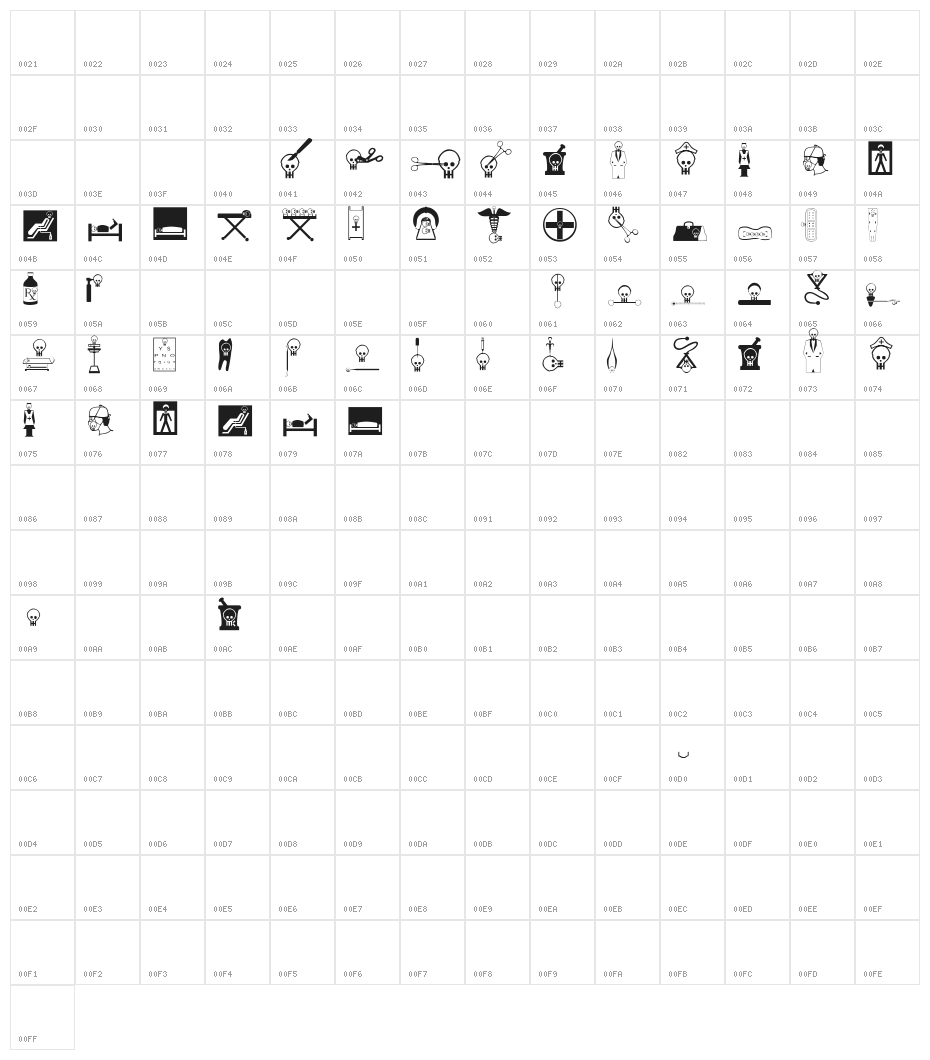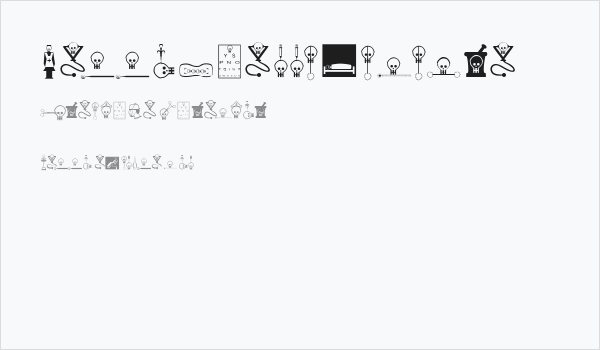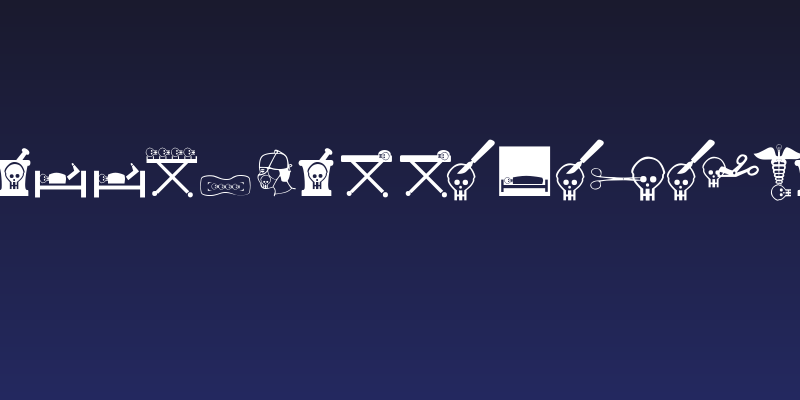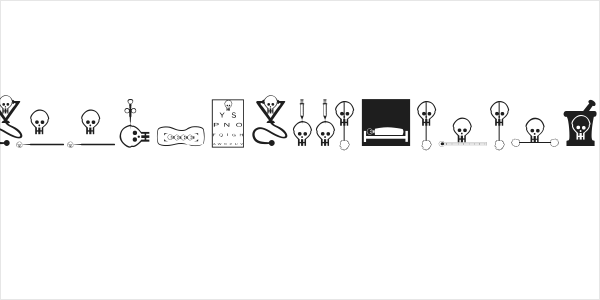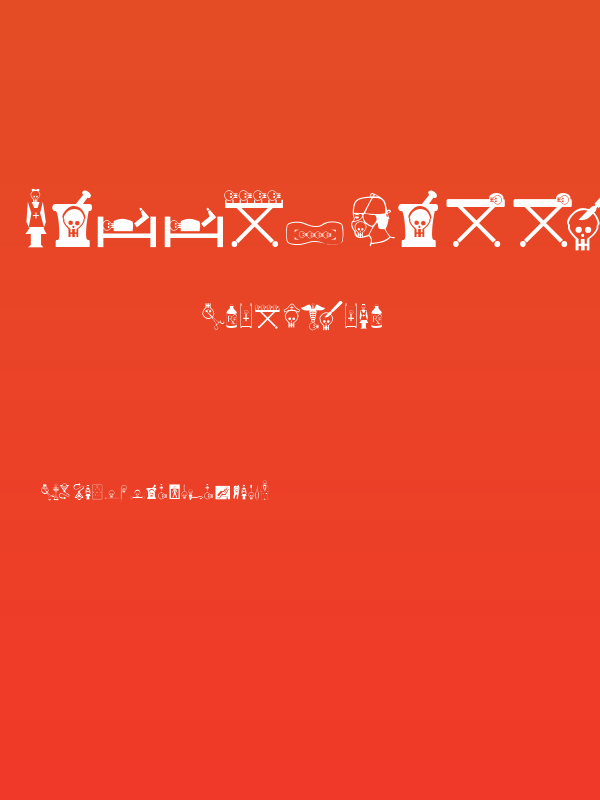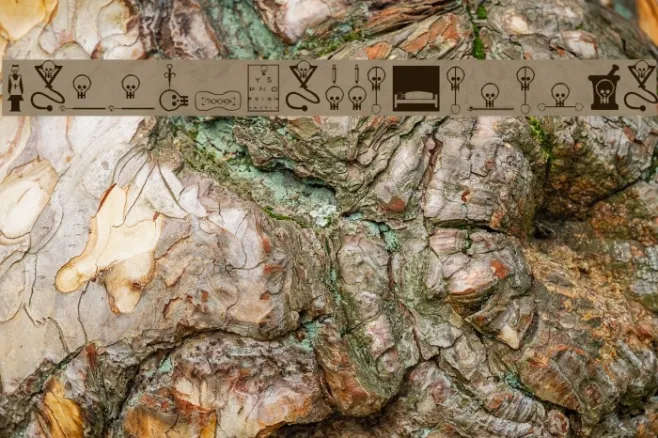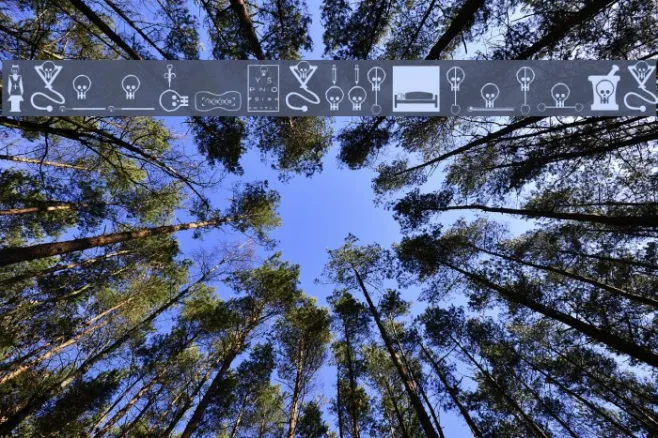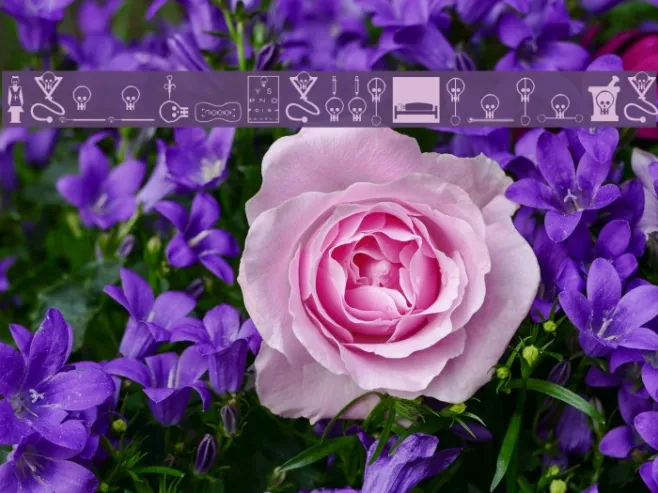
HelloViennaMacabre Font
HelloViennaMacabre Description
This font is a highly decorative and thematic typeface that incorporates macabre and medical imagery into its design. Each character is represented by a unique illustration, often featuring skulls, medical instruments, and figures in medical attire. The style is bold and graphic, with a strong emphasis on visual storytelling. The characters are more pictorial than textual, making it suitable for specific thematic uses rather than general text. The imagery is detailed and intricate, with a consistent use of black and white to create a stark contrast. This font is ideal for projects that require a gothic or horror theme, such as Halloween events, horror movie posters, or themed party invitations.
| Overall Style | Gothic, Decorative |
| Use Case | Logos, Posters, Themed Invitations |
| Proposed Projects | Ideal for Halloween events, horror movie posters, themed party invitations, and gothic designs. |